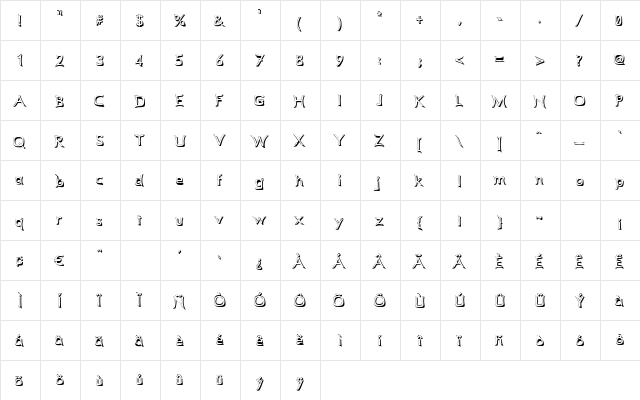
Comicbook Smash Regular
Design Context for Comicbook Smash Typeface
Comicbook Smash has an approachable, lighthearted character — its loose, expressive forms are well-suited to children's content, casual branding, and fun-first design.
Font Pairing: Pairs well with a rounded or humanist sans for body copy, maintaining the friendly tone without relying on Comicbook Smash to carry extended reading.
Pro Tip: Use Comicbook Smash at larger display sizes where its expressive character can land. Pair with a clean, simple sans for body copy to maintain readability.